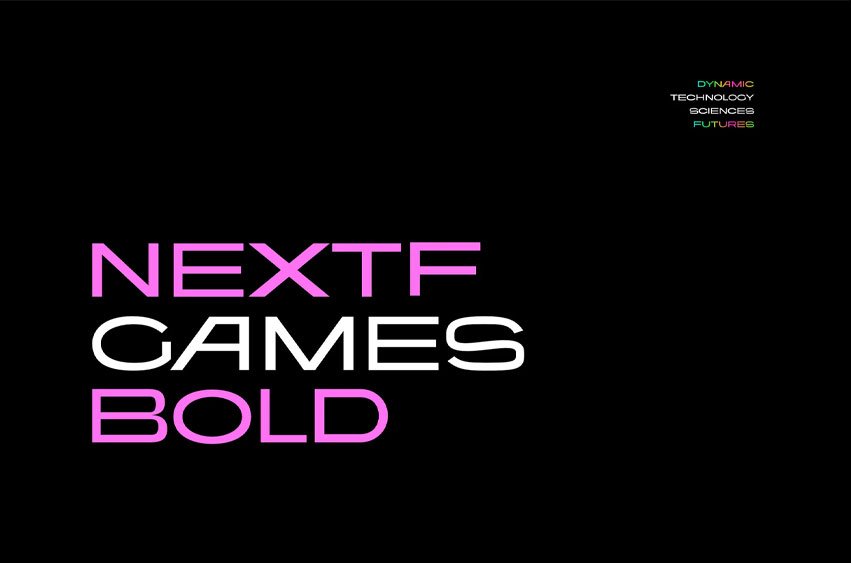
NextF Games Font is a modern sans serif style that feels dynamic and forward-thinking, ideal for ads aiming to capture attention quickly. Its smooth geometry and balanced proportions create a clean, contemporary look that stands out without being overwhelming.
The letterforms are clear and highly readable, even at smaller sizes or when displayed on digital screens, making it suitable for fast-paced visual environments.